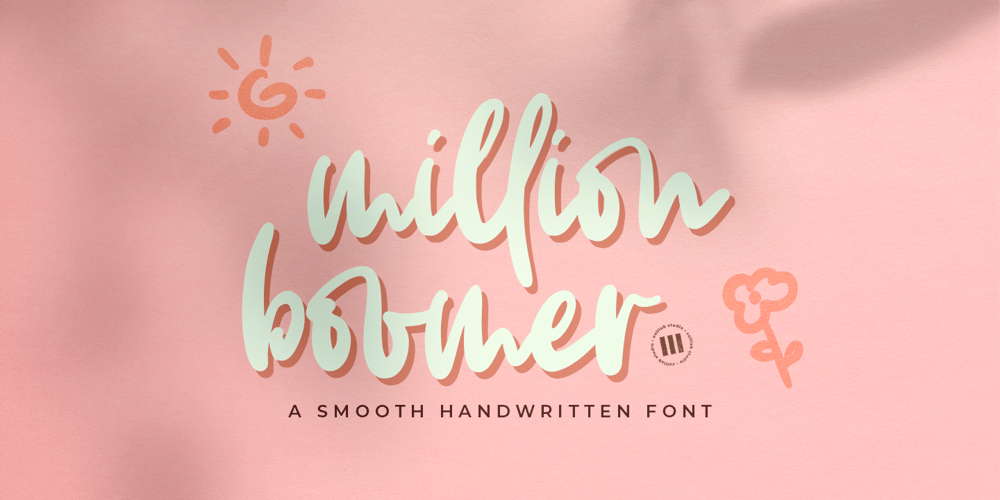
Million Boomer Font Family was designed by Awaluddin Syarif and published by Colllab Studio. Million Boomer contains 1 styles and family package options. Presenting Million Boomer! A Smooth Handwritten Font. This font made with the perfect combination of each character. You can combine with Extra to get a unique combination. It looks original and can be used for all your project needs. Each glyph has its own uniqueness and when meeting with others will provide dynamic and pleasing proximity. This font can be used at any time and in any project. You can see in the presentation picture above, Million Boomer looks stylish and unique on design projects.So, Million Boomer can’t wait to give its touch to all your design projects such as quotes, poster design, personal branding, promotional materials, website, logotype, product packaging, etc.WHAT’S INCLUDED?1. Million Boomer • It comes with uppercase, lowercase, ligatures, numeral, punctuation, symbols, alternate, and Standard Latin Multilingual Support (Afrikaans, Albanian, Catalan, Danish, Dutch, English, French, German, Icelandic, Indonesian, Italian, Malay, Norwegian, Portuguese, Spanisch, Swedish, Zulu, and More). 2. Extra Dingbat • Included 17 Dingbats. You can feature all with typing c_1 until c_17A Million ThanksColllab Studio